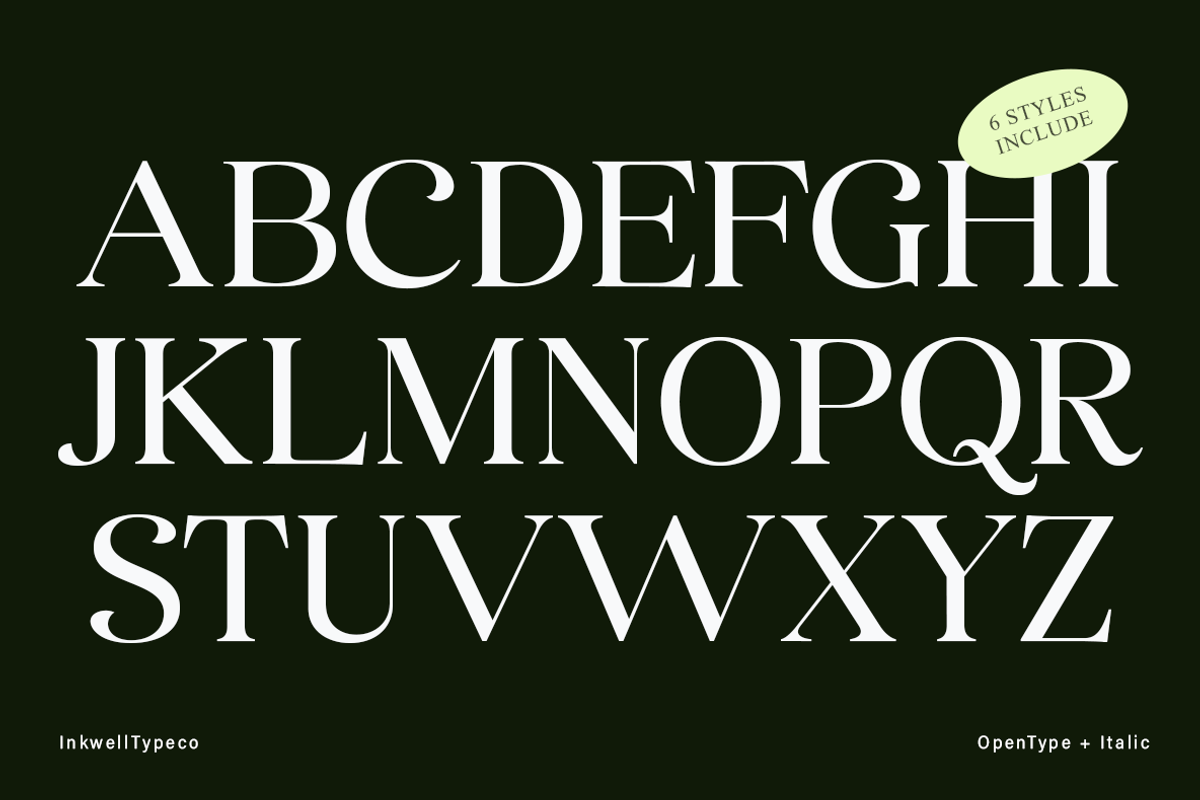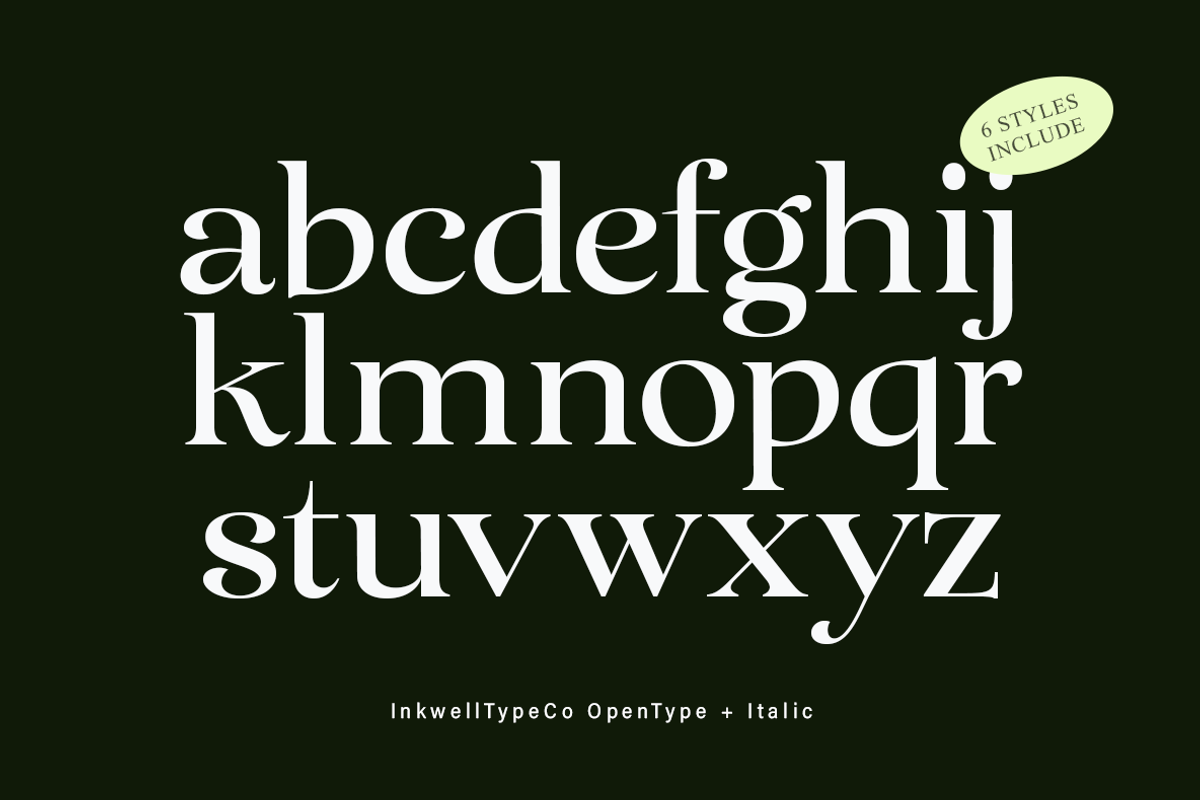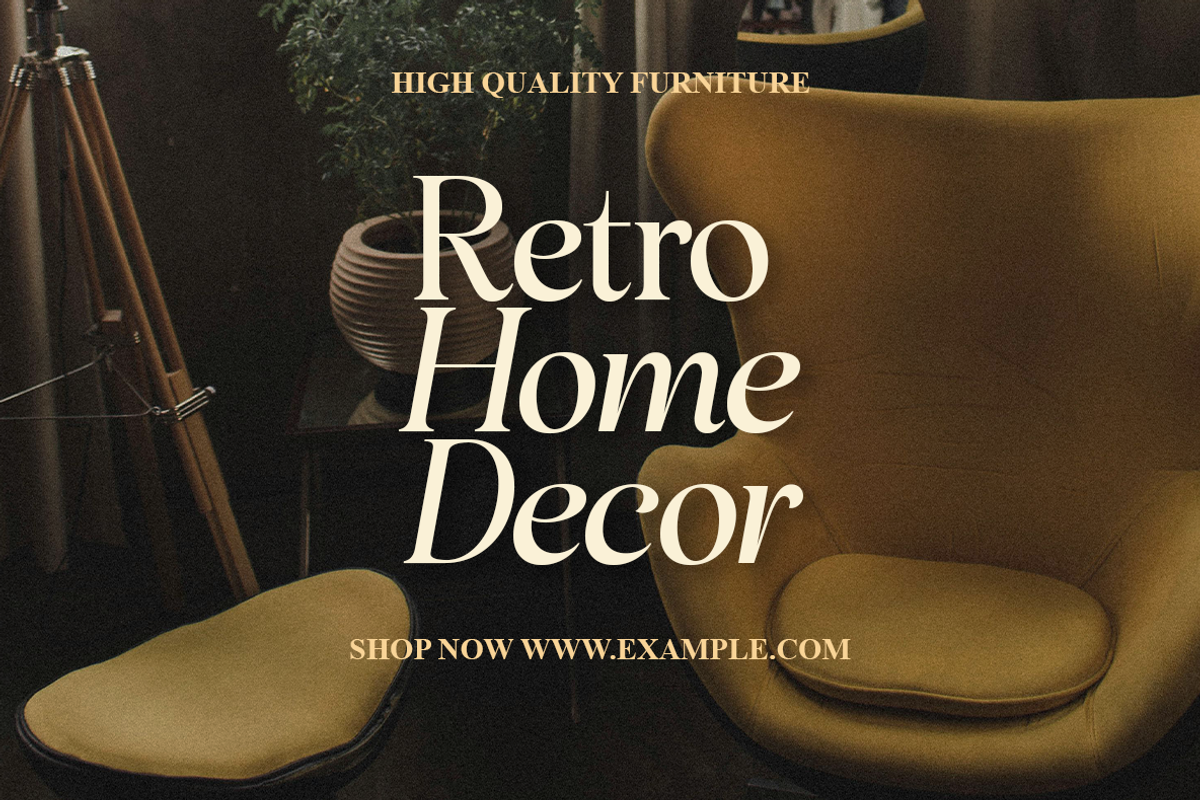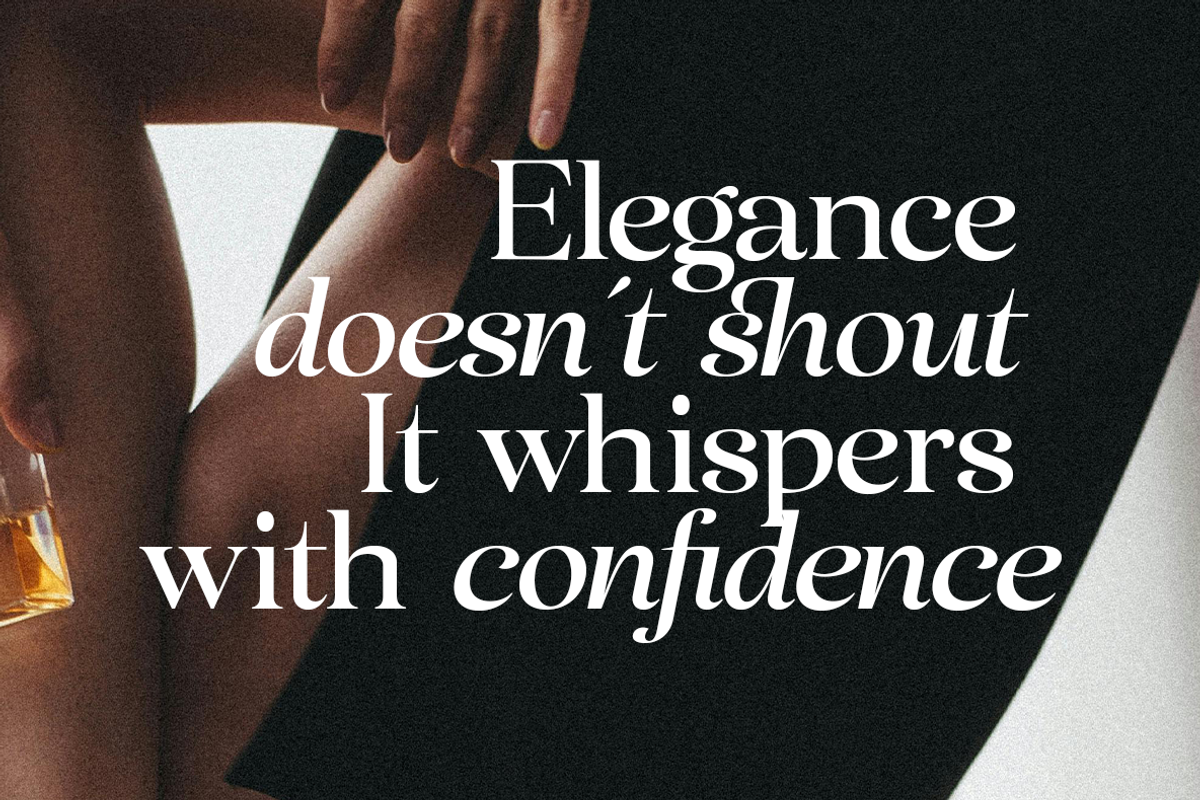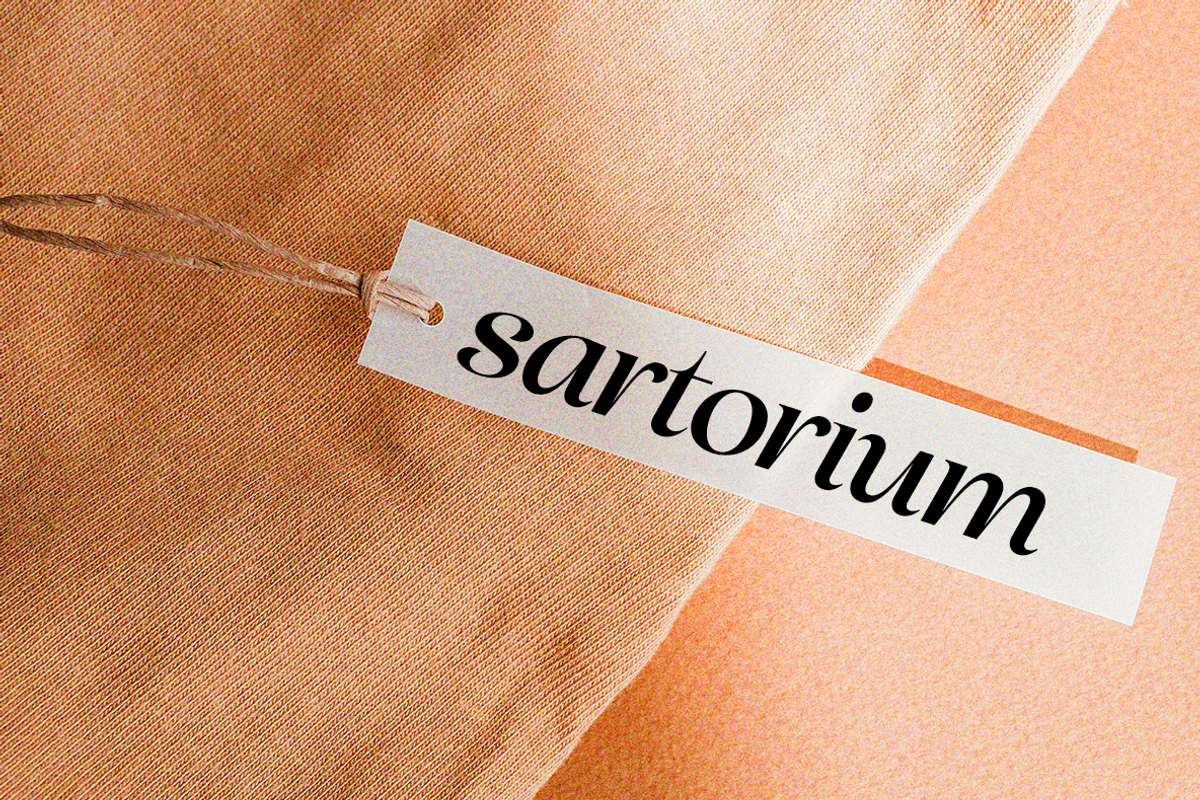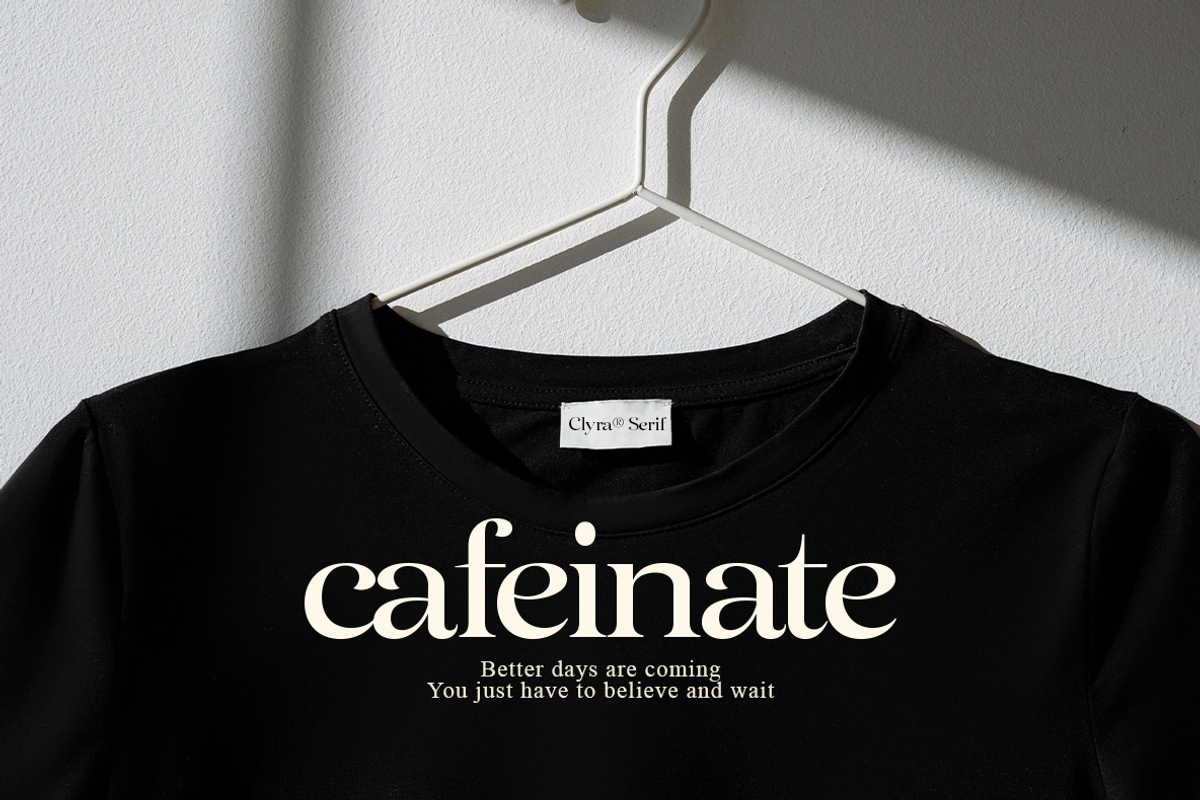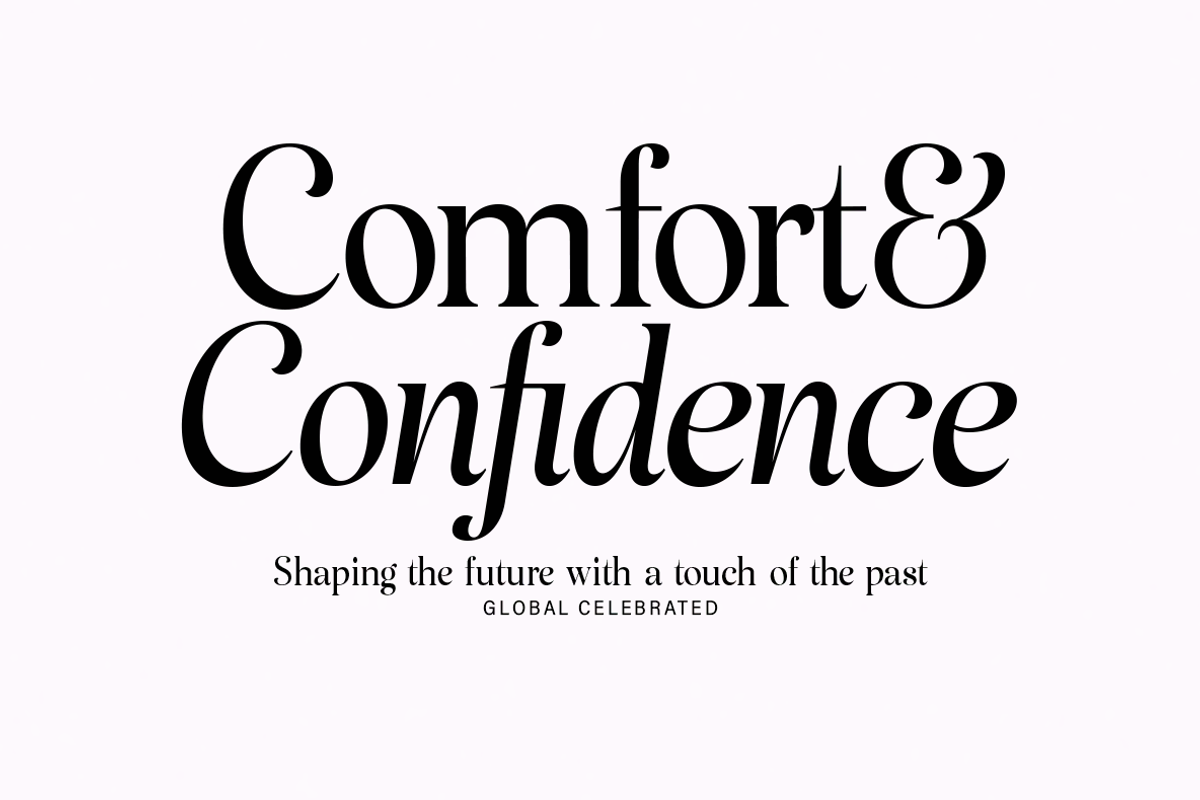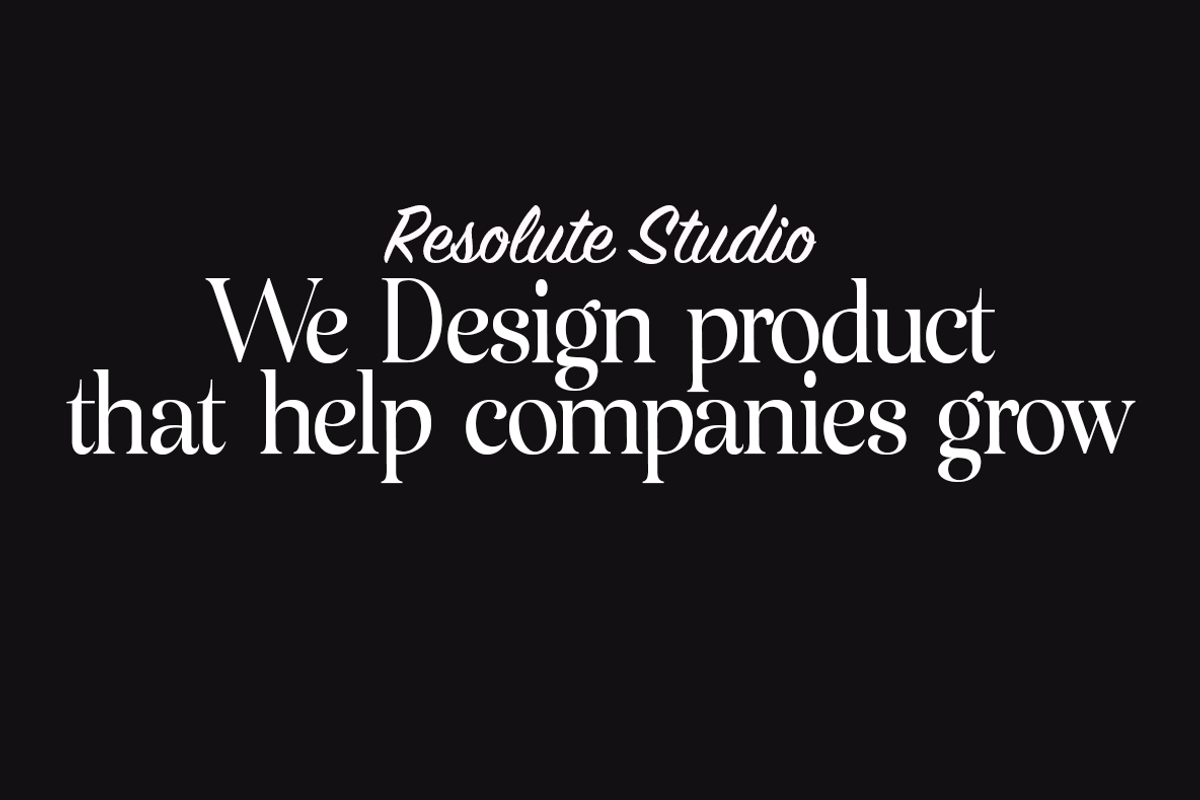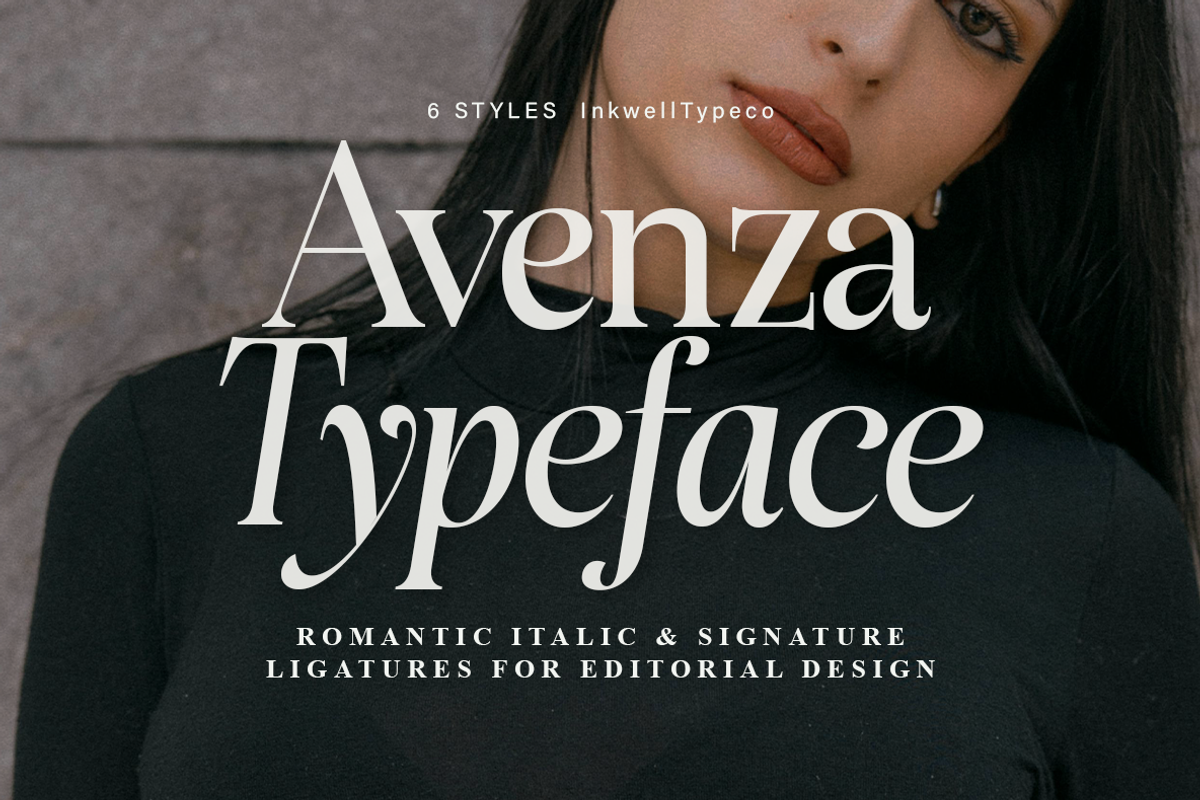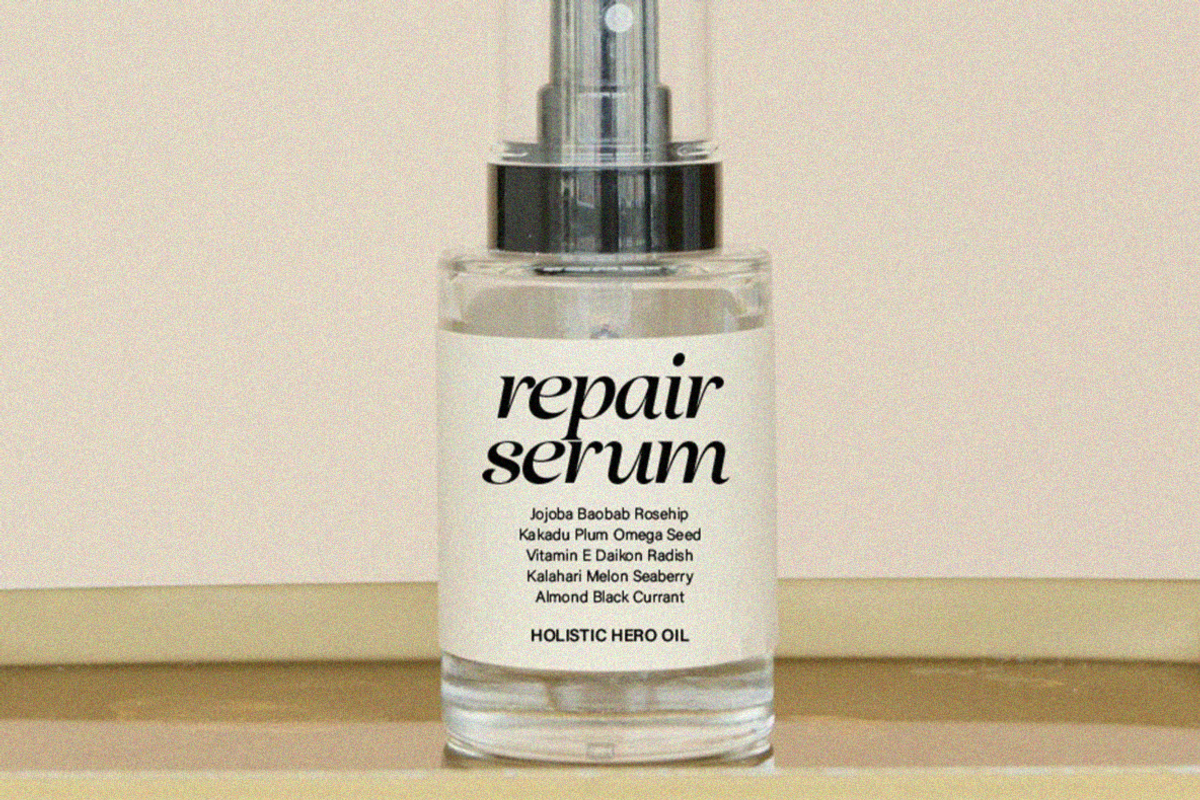
Avenza | 6 style Romantic serif
Avenza Typeface is a refined serif crafted to speak softly yet confidently. With six versatile styles, from graceful romantic italics to bold signature-inspired forms, Avenza evokes elegance, poise, and storytelling charm. Each curve and ligature is thoughtfully drawn to bring emotional depth to editorial layouts, branding, fashion, and modern romance. Avenza isn’t just a typeface — it’s a voice. One that whispers sophistication and holds the gaze of the modern reader.